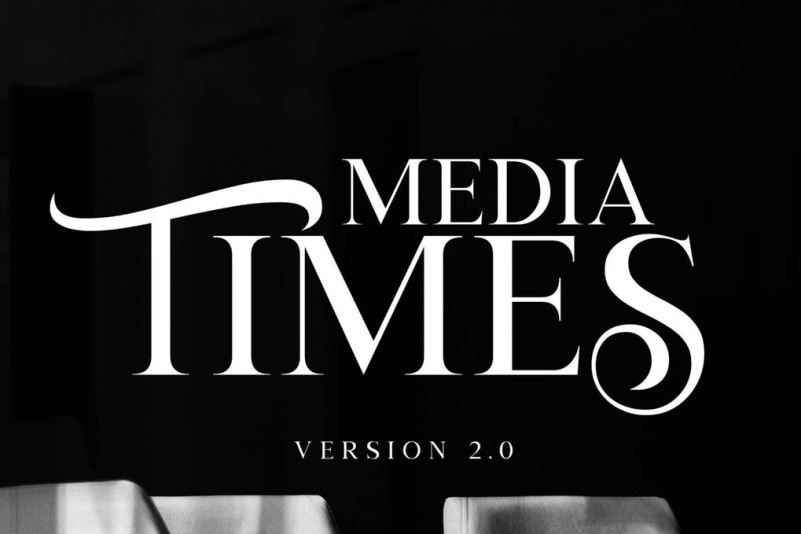
Media TImes 2.0 Font
Media Times Version 2.0 is elegant serif font. It is modern look, perfect for any your business/office purpose.You can combine Lower and Uppercase to match the best form.